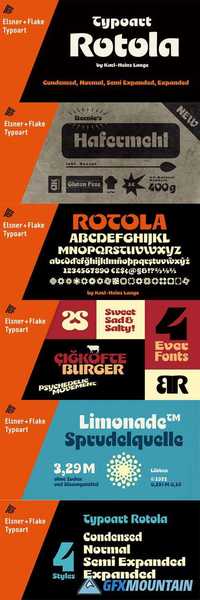
Rotola TH Pro Font Family
Karl-Heinz Lange presented his first drafts of Rotola during a Typoart® type design competition in 1985 under the name “Boutique”. A year later, Norbert du Vinage, former manager of the type design department, integrated “Boutique” in his production plan. Due the Fall of the Wall, it took about 18 years until Lange finished this font family in cooperation with Elsner+Flake.